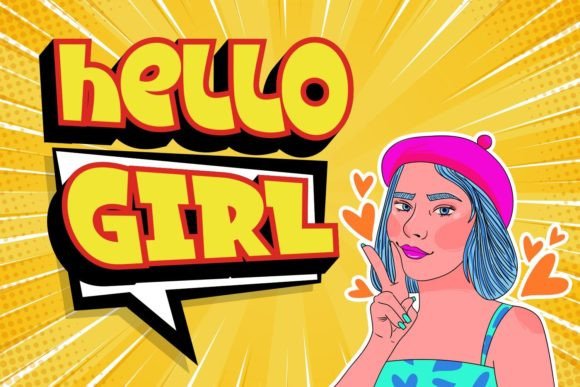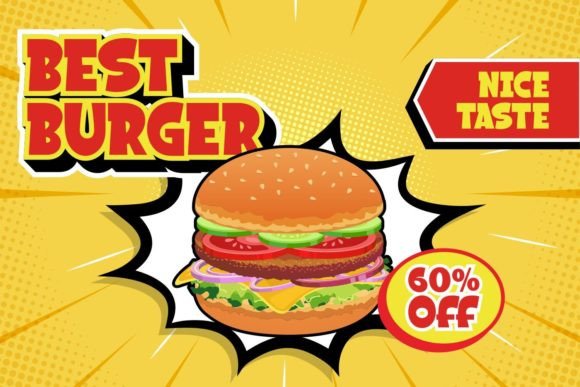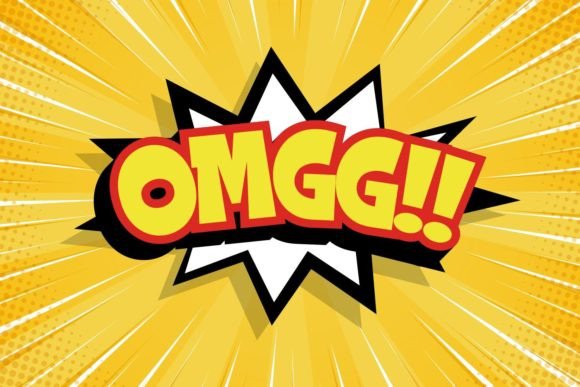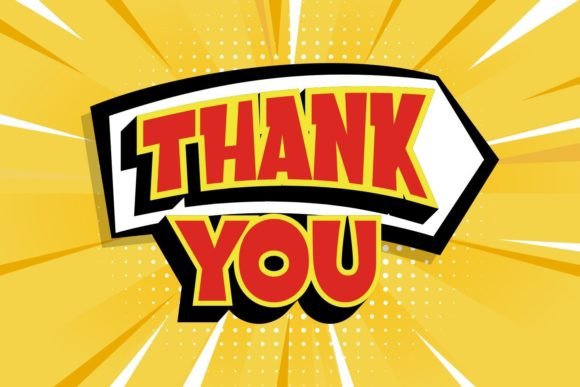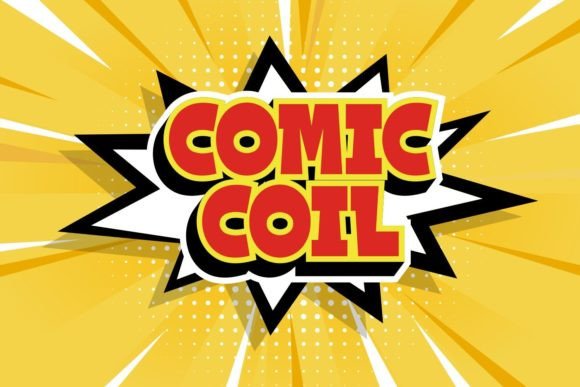
Introducing Comic Coil Font: The Ultimate Display Font for Bold and Playful Designs
Are you on the hunt for a font that packs a punch and adds a dash of playfulness to your creative projects? Look no further than Comic Coil Font, a thick and chunky display font that’s sure to make a statement. In this article, we’ll dive into the features and benefits of Comic Coil Font, and explore how it can elevate your designs to the next level.
The Perfect Font for Bold and Memorable Designs
Comic Coil Font is a charming set of characters that’s designed to make a lasting impression. Its bold and chunky texture makes it perfect for headlines, titles, and any other design element that needs to stand out. Whether you’re working on a project for a children’s book, a toy brand, or a fun and quirky website, Comic Coil Font is the perfect choice.
One of the key benefits of Comic Coil Font is its versatility. It can be used for a wide range of projects, from playful and fun to bold and edgy. The font’s chunky texture and rounded edges give it a friendly and approachable feel, making it perfect for designs that need to appeal to a wide audience.
PUA Encoded for Easy Access to Glyphs
Another major advantage of Comic Coil Font is that it’s PUA (Private Use Area) encoded. This means that you can easily access all the glyphs and characters in the font, making it simple to customize and adapt to your needs. With PUA encoding, you can access a wide range of alternative characters, ligatures, and swashes, giving you even more creative freedom and flexibility.
Whether you’re a designer, crafter, or DIY enthusiast, PUA encoding makes it easy to get the most out of Comic Coil Font. You can use the font to create custom signs, posters, and flyers, or add a personal touch to your craft projects and DIY designs.
Adding a Touch of Playfulness to Your Designs
So, how can you use Comic Coil Font to add a touch of playfulness to your designs? Here are a few ideas to get you started:
- Use Comic Coil Font as a headline or title font to add a bold and eye-catching element to your design.
- Create custom signs and posters for kids’ parties, events, or activities.
- Add a playful touch to your craft projects, such as handmade cards, gift tags, or DIY decorations.
- Use Comic Coil Font to create fun and quirky social media graphics, blog posts, or website headers.
The possibilities are endless, and with Comic Coil Font, you can add a dash of playfulness and personality to any design.
Why Designers and Crafters Love Comic Coil Font
So, why do designers and crafters love Comic Coil Font? Here are just a few reasons:
- Bold and memorable: Comic Coil Font is designed to make a statement and grab attention.
- Playful and fun: The font’s chunky texture and rounded edges give it a friendly and approachable feel.
- Versatile: Comic Coil Font can be used for a wide range of projects, from playful and fun to bold and edgy.
- Easy to use: PUA encoding makes it simple to access all the glyphs and characters in the font.
Whether you’re a professional designer or a DIY enthusiast, Comic Coil Font is the perfect choice for anyone looking to add a touch of playfulness and personality to their designs.
In conclusion, Comic Coil Font is a thick and chunky display font that’s perfect for bold and memorable designs. With its playful and fun texture, versatility, and PUA encoding, it’s the perfect choice for designers, crafters, and DIY enthusiasts. Whether you’re working on a project for a children’s book, a toy brand, or a fun and quirky website, Comic Coil Font is sure to make a statement and add a touch of playfulness to your design.